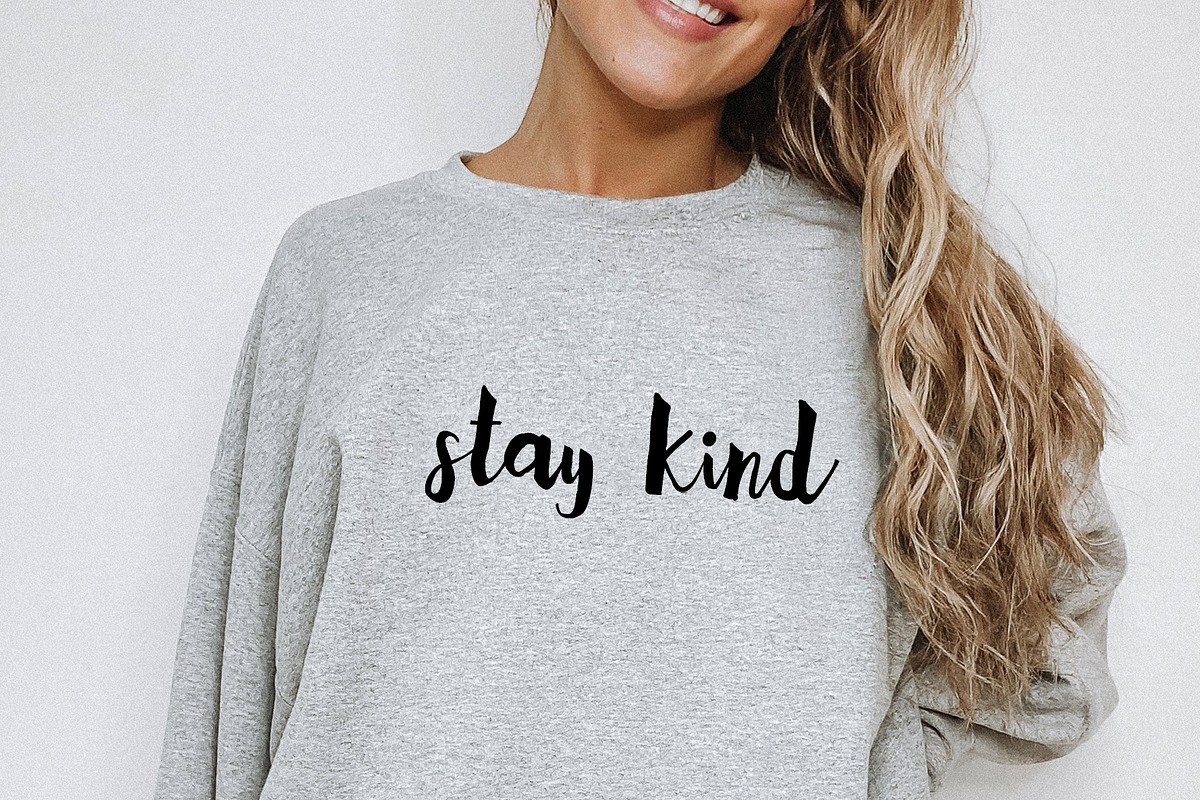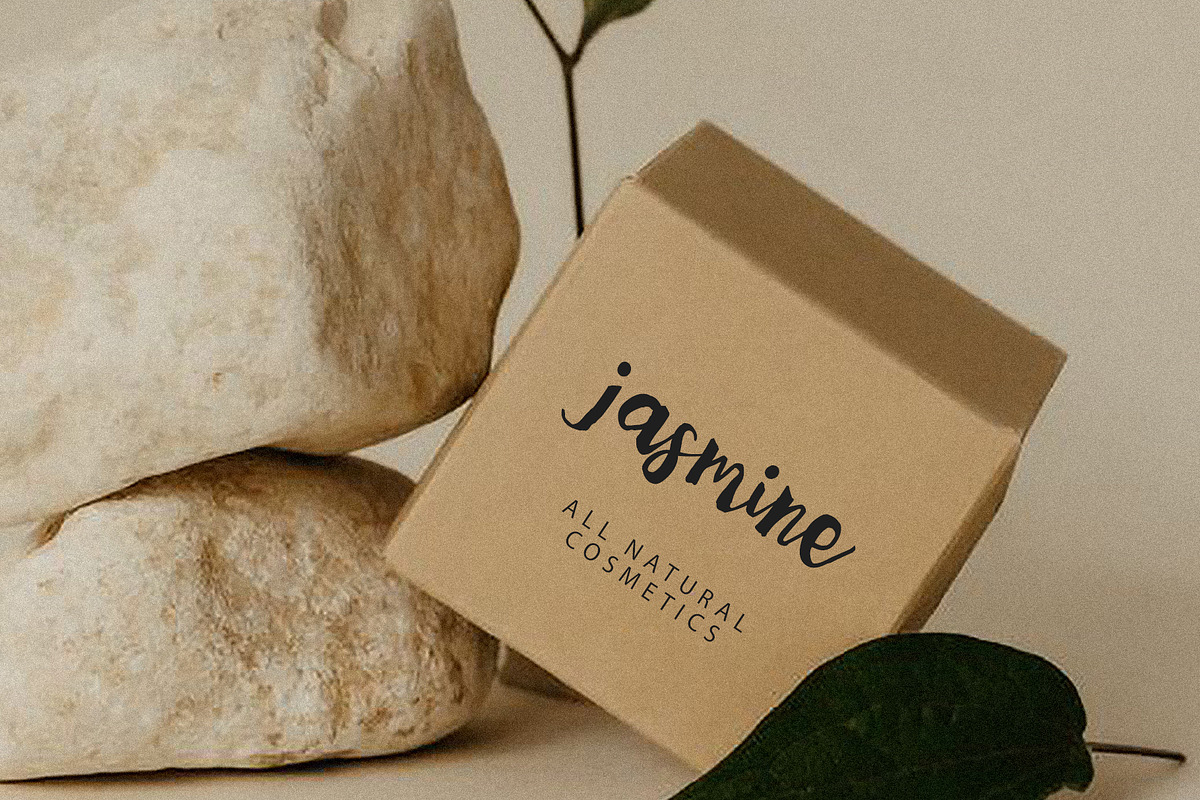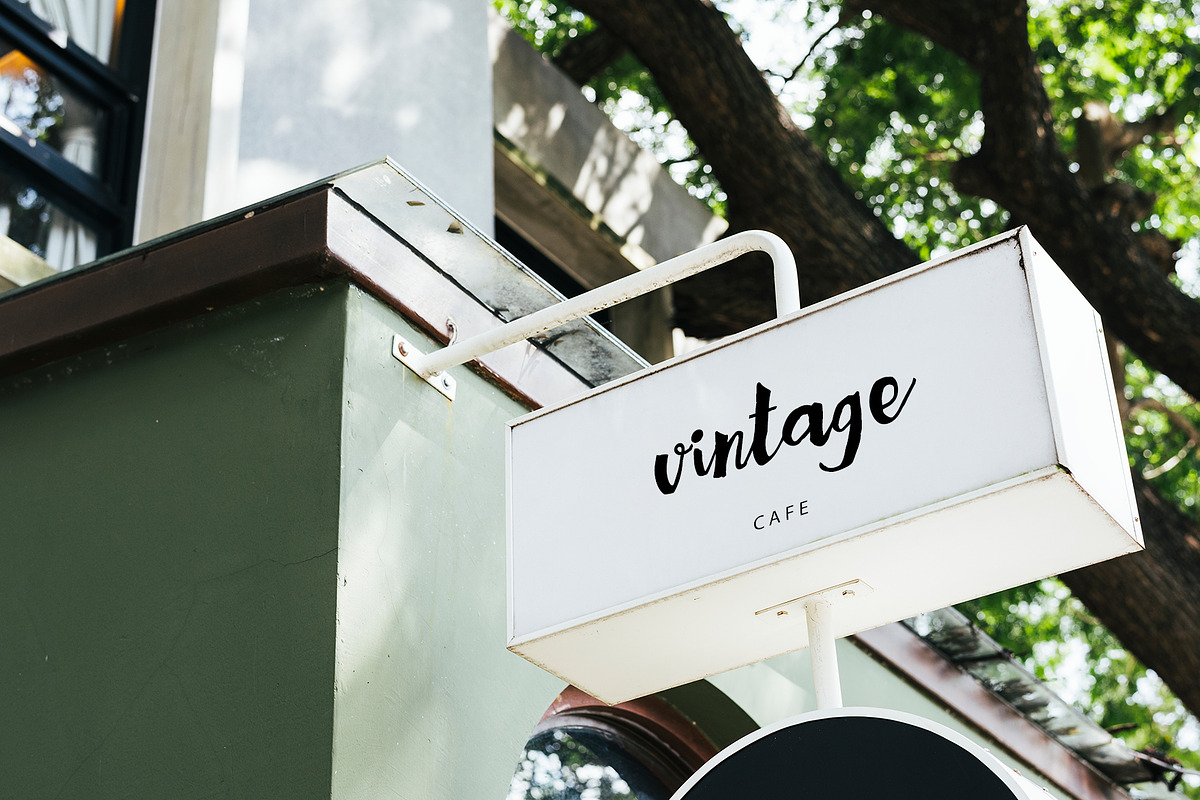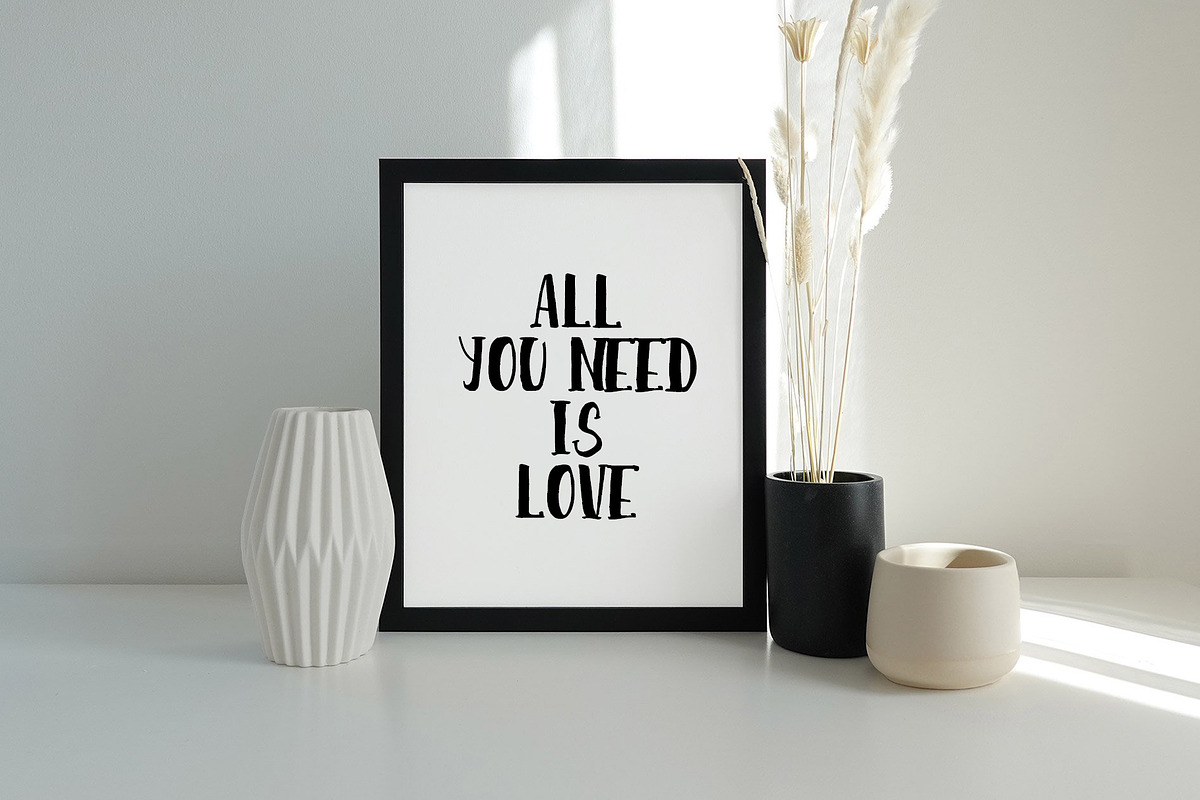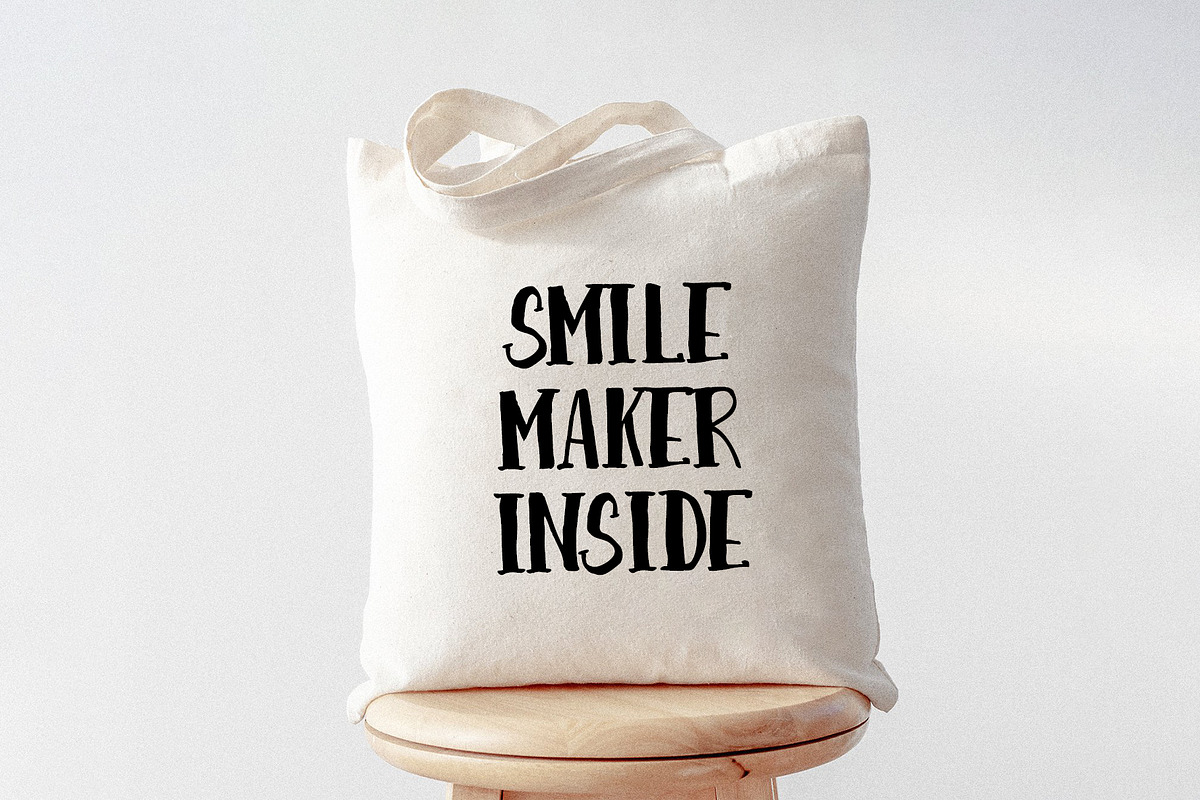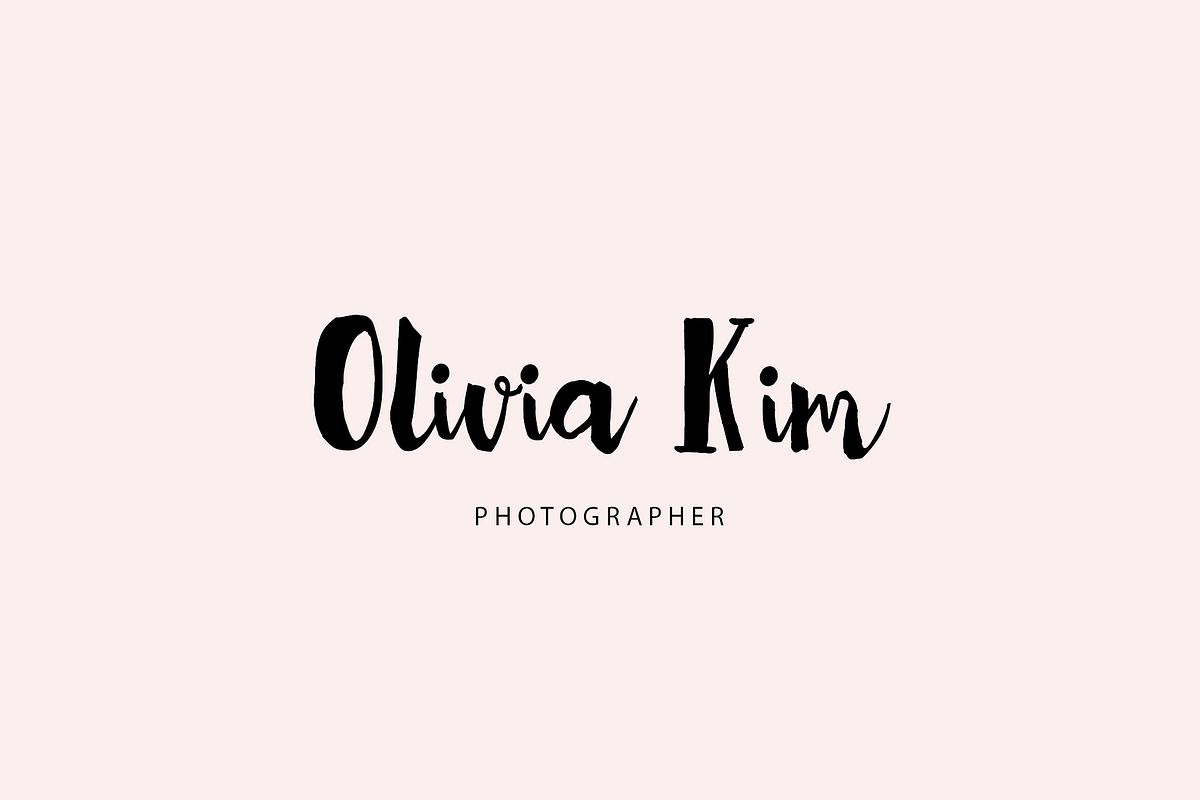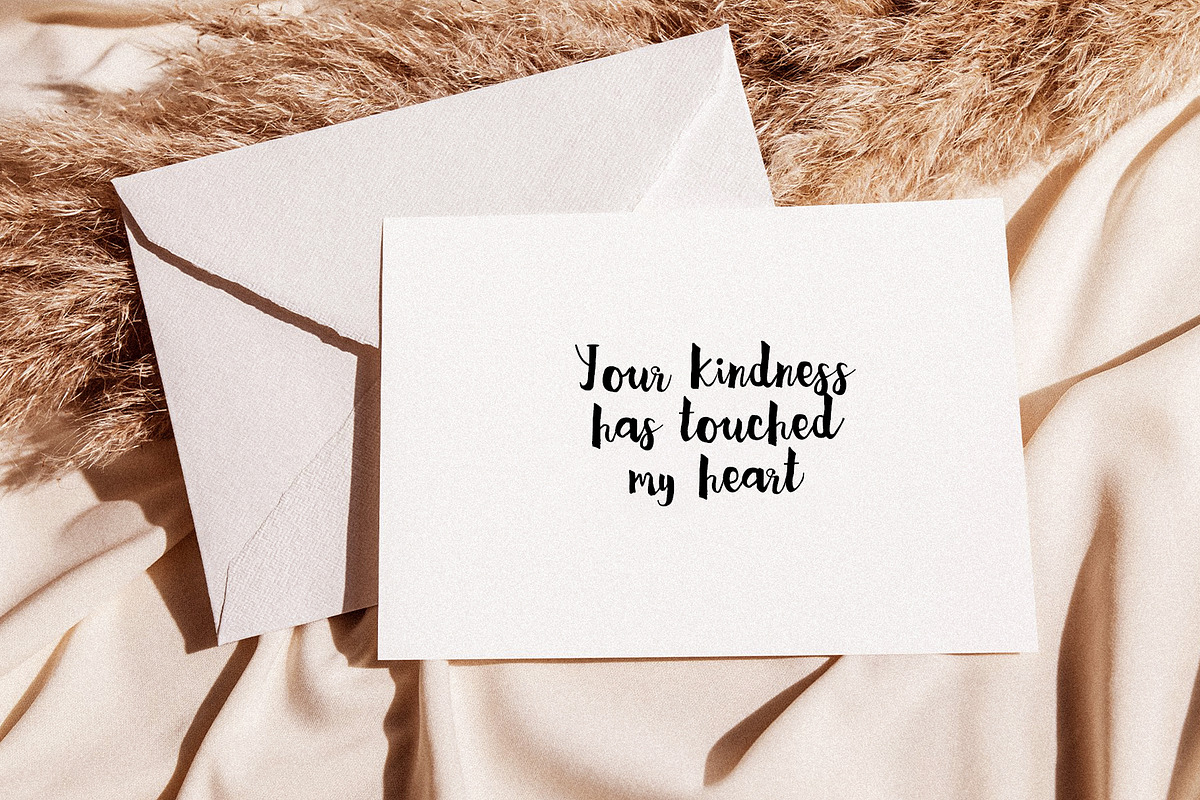
Dreamboat handwritten font
Dreamboat handwritten font by supfonts is a font selected for branding, posters, packaging, typography.
- Dreamboat it is cute handwritten chick font with exquisite accents.
Why Dreamboat handwritten font is worth a look
Dreamboat handwritten font by supfonts fits naturally into Branding, posters, packaging, typography.